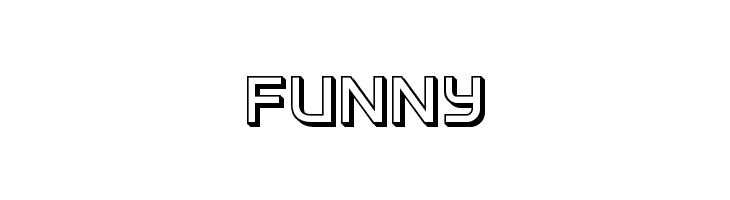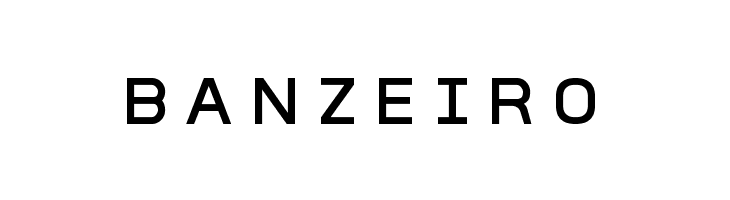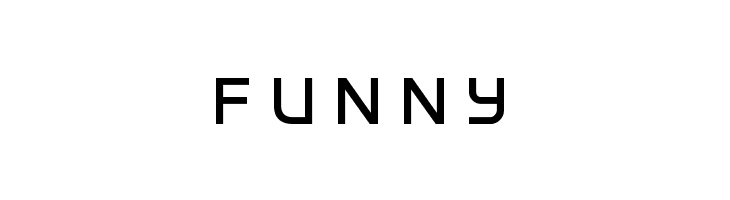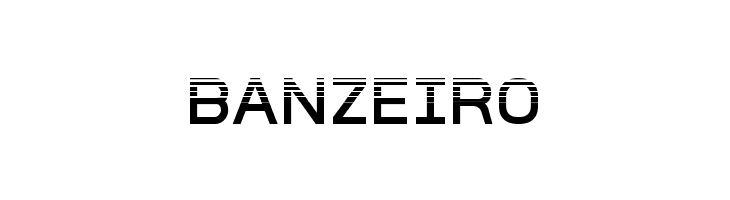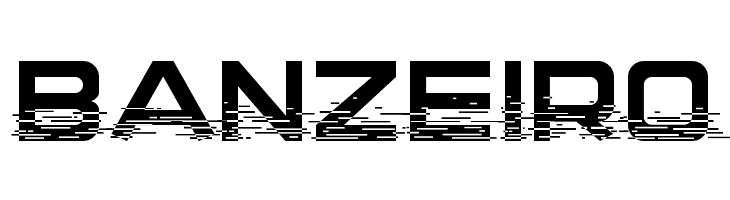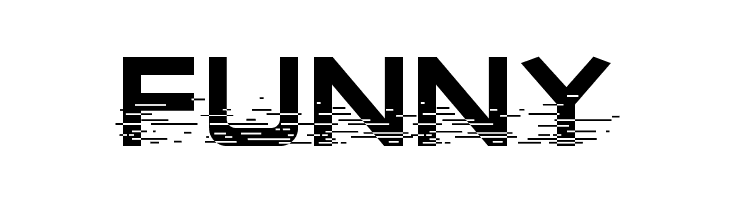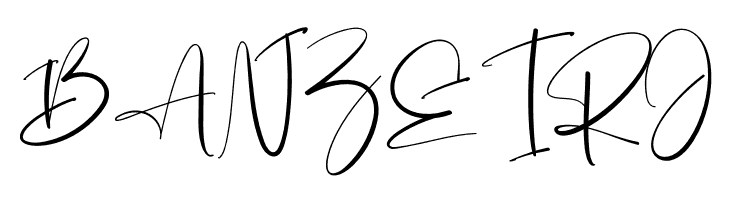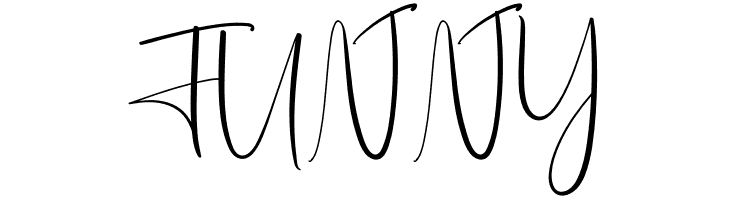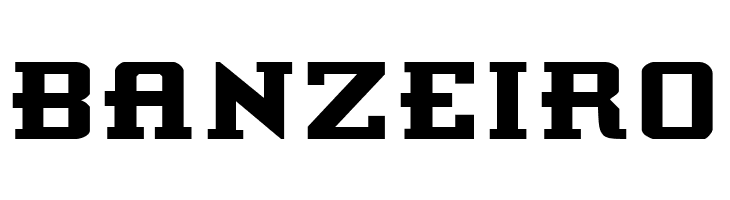
A modern, semi-bold sans-serif font with balanced proportions and medium contrast.
A sophisticated serif font with a blend of classic and modern elements.
A bold, geometric font with a strong, industrial aesthetic.
A bold, 3D font with geometric, blocky characters and a strong outline.
A bold, decorative font with a three-dimensional striped effect.
A bold, engraved font with a three-dimensional, vintage-inspired style.
A bold, decorative font with a unique gradient effect and vintage-modern appeal.
A bold, industrial font with a unique halftone effect and geometric shapes.
A bold, geometric font with a three-dimensional, shadowed effect.
A bold, 3D outline font with a futuristic and geometric style.
A bold, futuristic font with geometric shapes and sharp angles.
A dynamic and expressive script font with fluid, flowing letterforms.
Bold, textured font with a unique dotted pattern.
A bold, glitch-style font with a modern, digital aesthetic.
A bold, distorted font with an interference effect for a modern, edgy look.
A bold, futuristic font with geometric shapes and sharp angles.
A bold, 3D geometric font with a futuristic, sci-fi aesthetic.
Futuristic, bold font with a gradient effect and geometric design.
A bold, futuristic font with a halftone effect and geometric design.